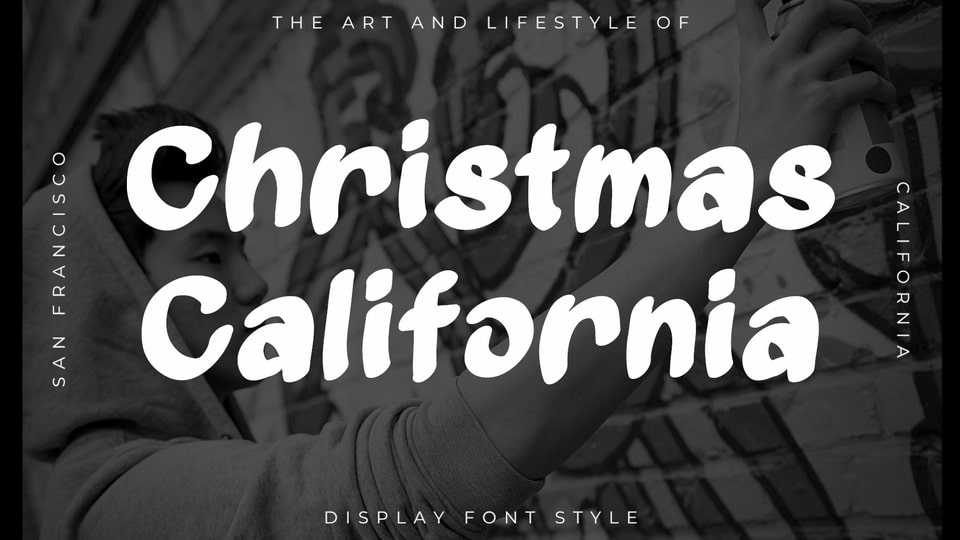
Download Christmas California font, a bold and expressive display typeface that blends a festive spirit with laid-back, urban energy. With smooth, rounded strokes and a slightly playful brush style, this typeface radiates warmth and creativity.